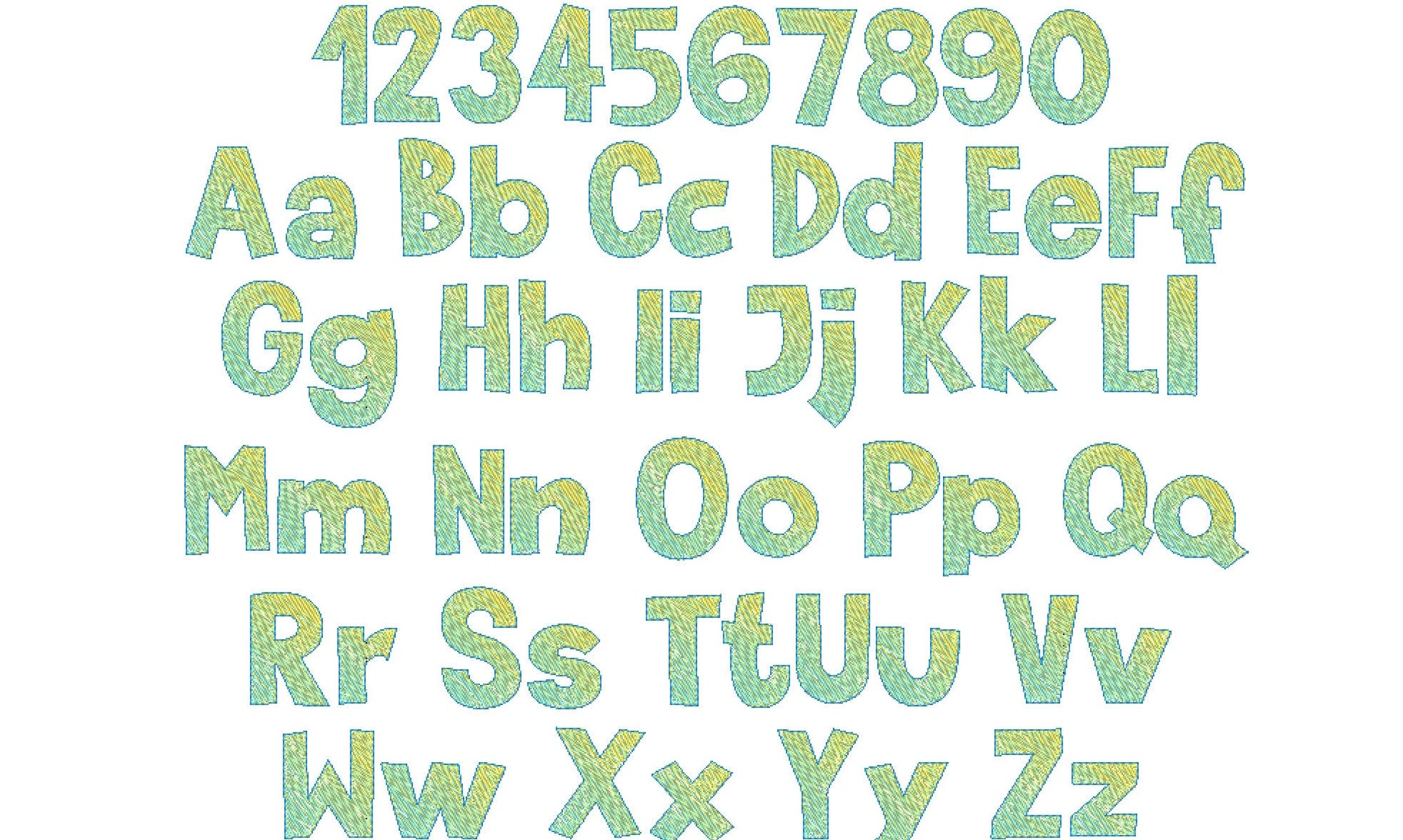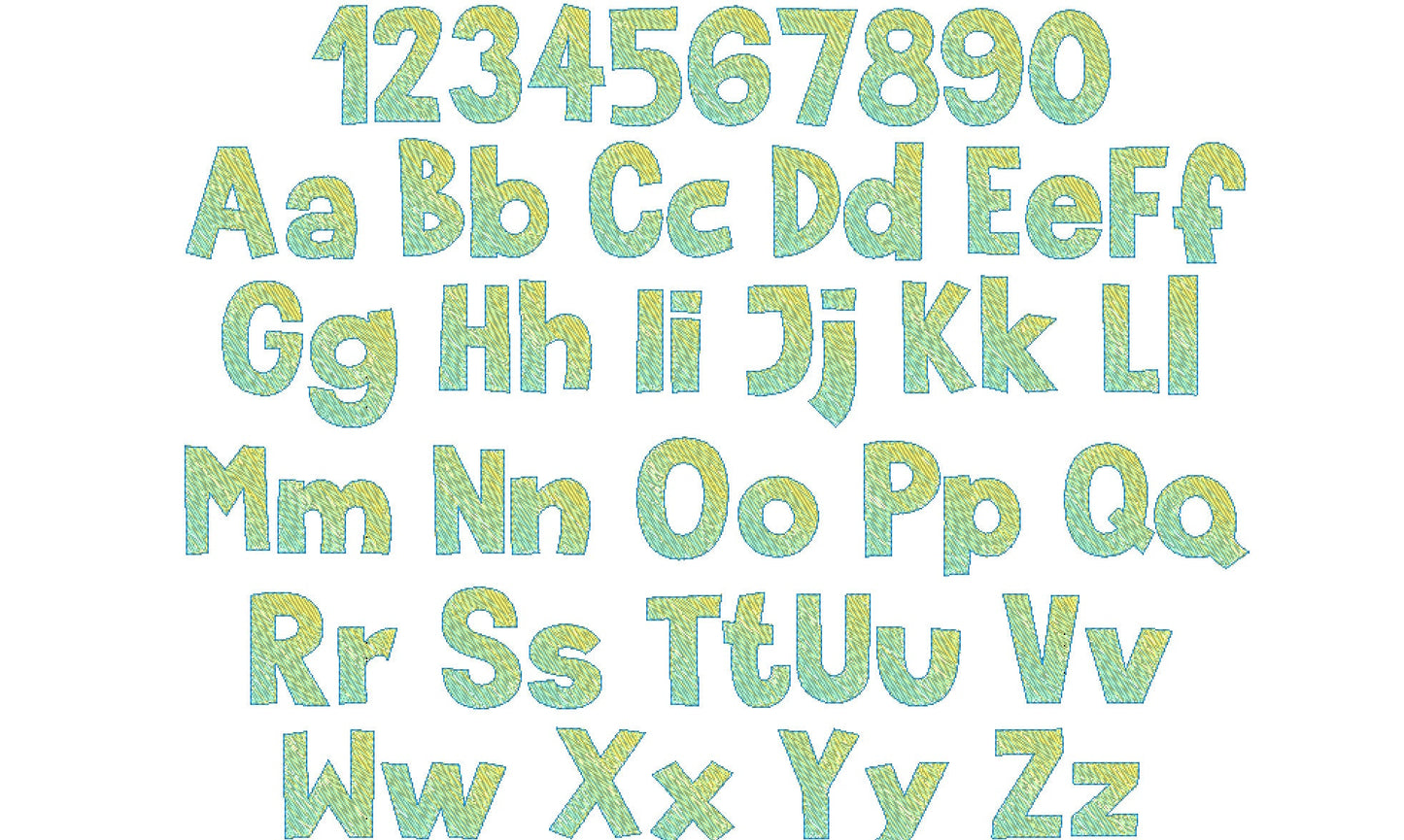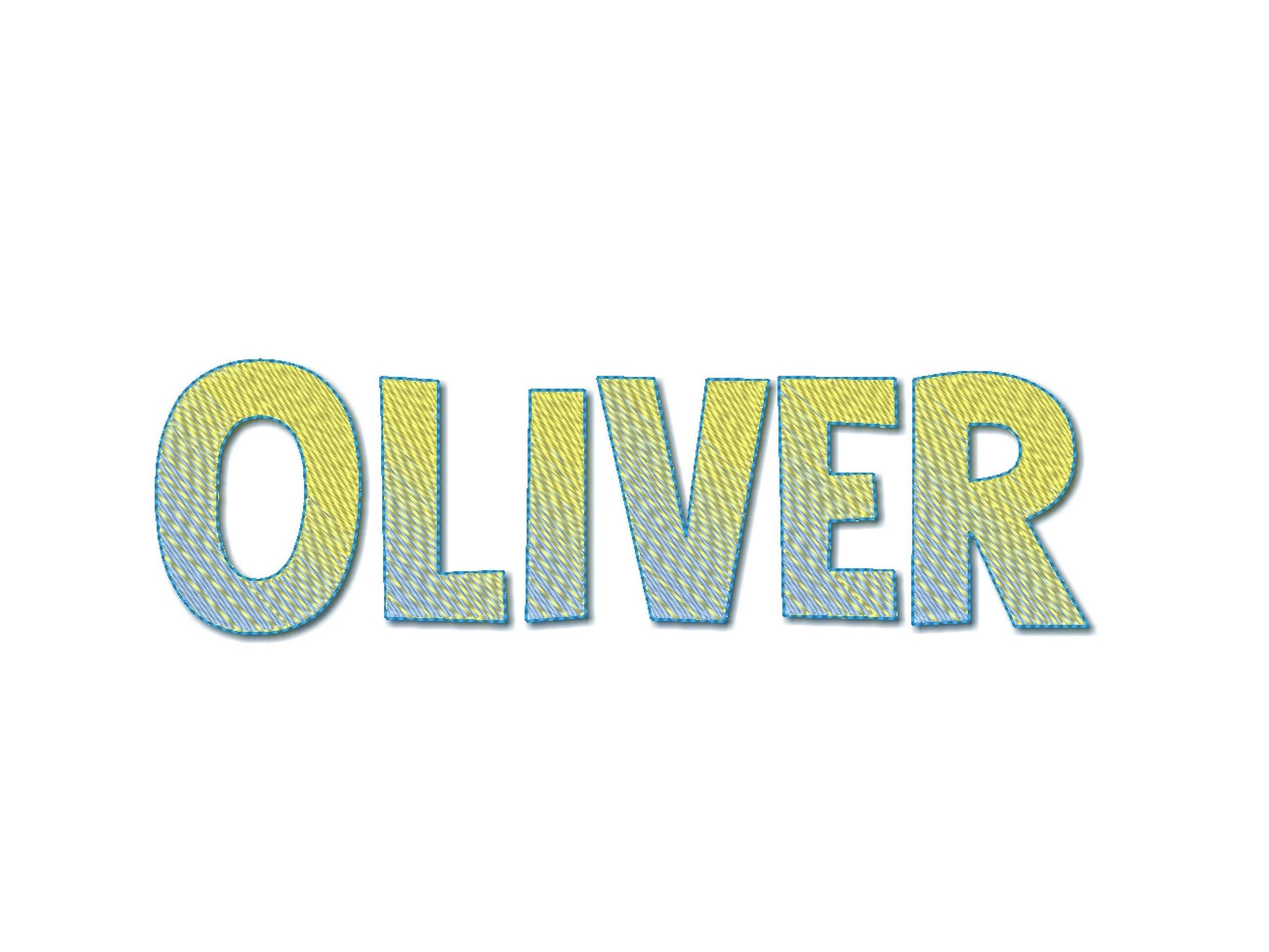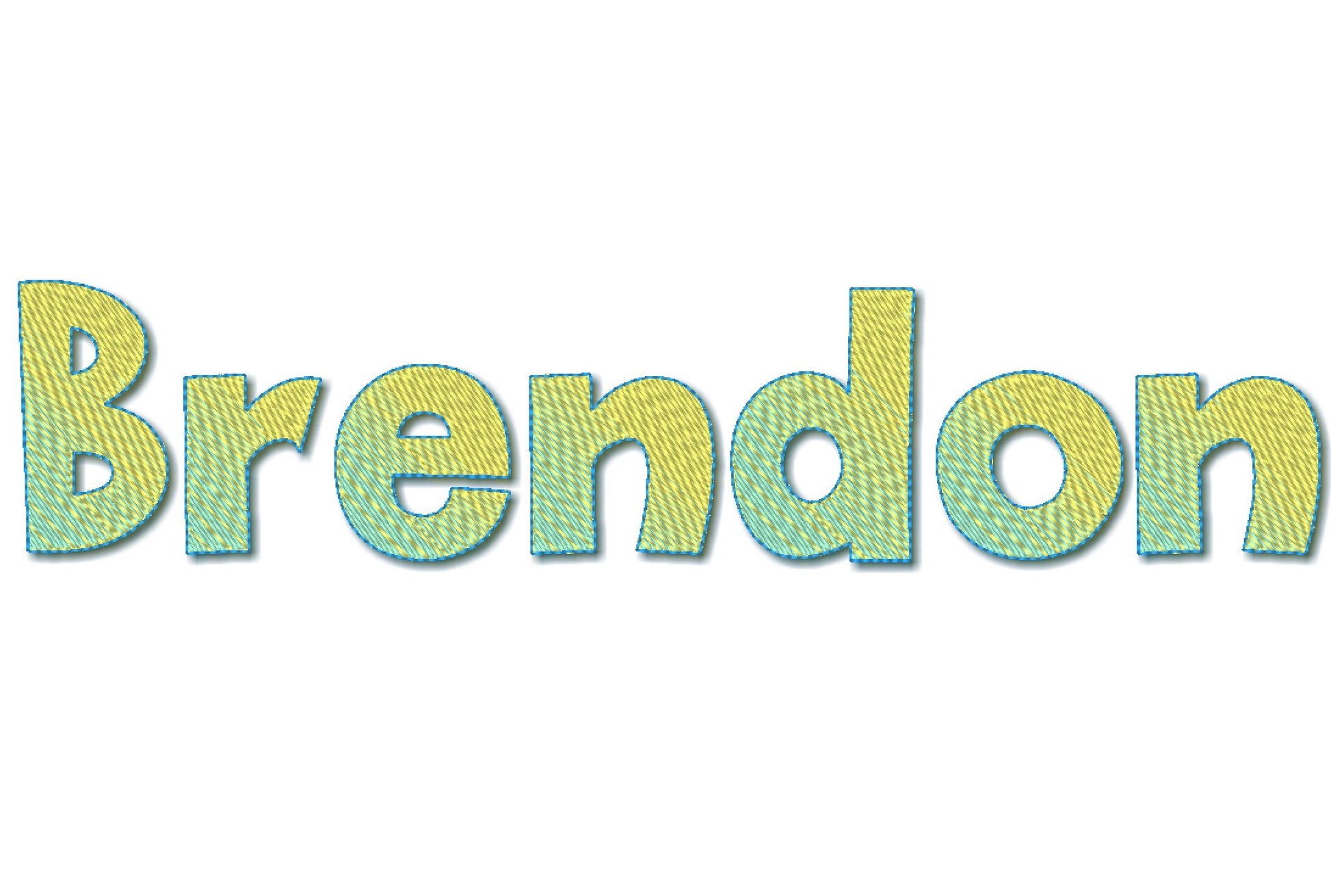
Iridescent Ombre Font Oliver
Uppercase and lowercase letters, numbers 0 to 9 and punctuation in six sizes: 1.2, 1.6, 2, 2.4, 2.8 and 3.1 inches. One side of each letter is stitched mostly in one color and the other side in the second, so it shimmers all by itself.
- Iridescent 2-color font
- Uppercase, lowercase, numbers 0 to 9, punctuation
- 6 sizes, 1.2 to 3.1 in